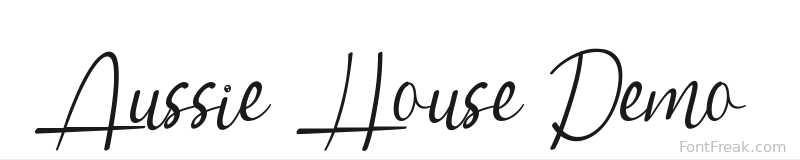
Aussie House Demo
About Aussie House Demo
The Aussie House Demo font by Noah Type is a captivating handwritten typeface that exudes charm and personality. This display font features a playful yet sophisticated style, making it perfect for a variety of creative projects. The strokes exhibit a medium weight with gentle contrast, creating a harmonious balance that draws the eye without overwhelming the viewer. The spacing is designed thoughtfully, allowing for easy readability while maintaining a casual, inviting feel. Decorative elements, such as the sweeping curves and slight flourishes, add a touch of whimsy, making this font stand out in any design.
Ideal use cases for the Aussie House Demo font include wedding invitations, where its elegant yet relaxed style can enhance the romantic atmosphere. It also shines on restaurant menus, particularly for cafes or eateries that wish to convey a cozy, laid-back vibe. Movie posters and promotional materials can benefit from its distinctive look, capturing attention while conveying a sense of fun. Additionally, small business owners looking to create engaging branding materials will find this font a valuable asset in their toolkit.
The target audience for the Aussie House Demo font includes graphic designers, small business owners, and content creators who seek to inject personality into their work. This font resonates with individuals who appreciate a blend of creativity and professionalism, making it a versatile choice for various applications.
Overall, the Aussie House Demo font stands out due to its unique combination of playfulness and elegance. It offers an approachable aesthetic that can elevate any design project. Whether you’re looking for a font that adds warmth to your invitations or a stylish touch to your branding, the Aussie House Demo font free download provides an excellent option for your creative needs.